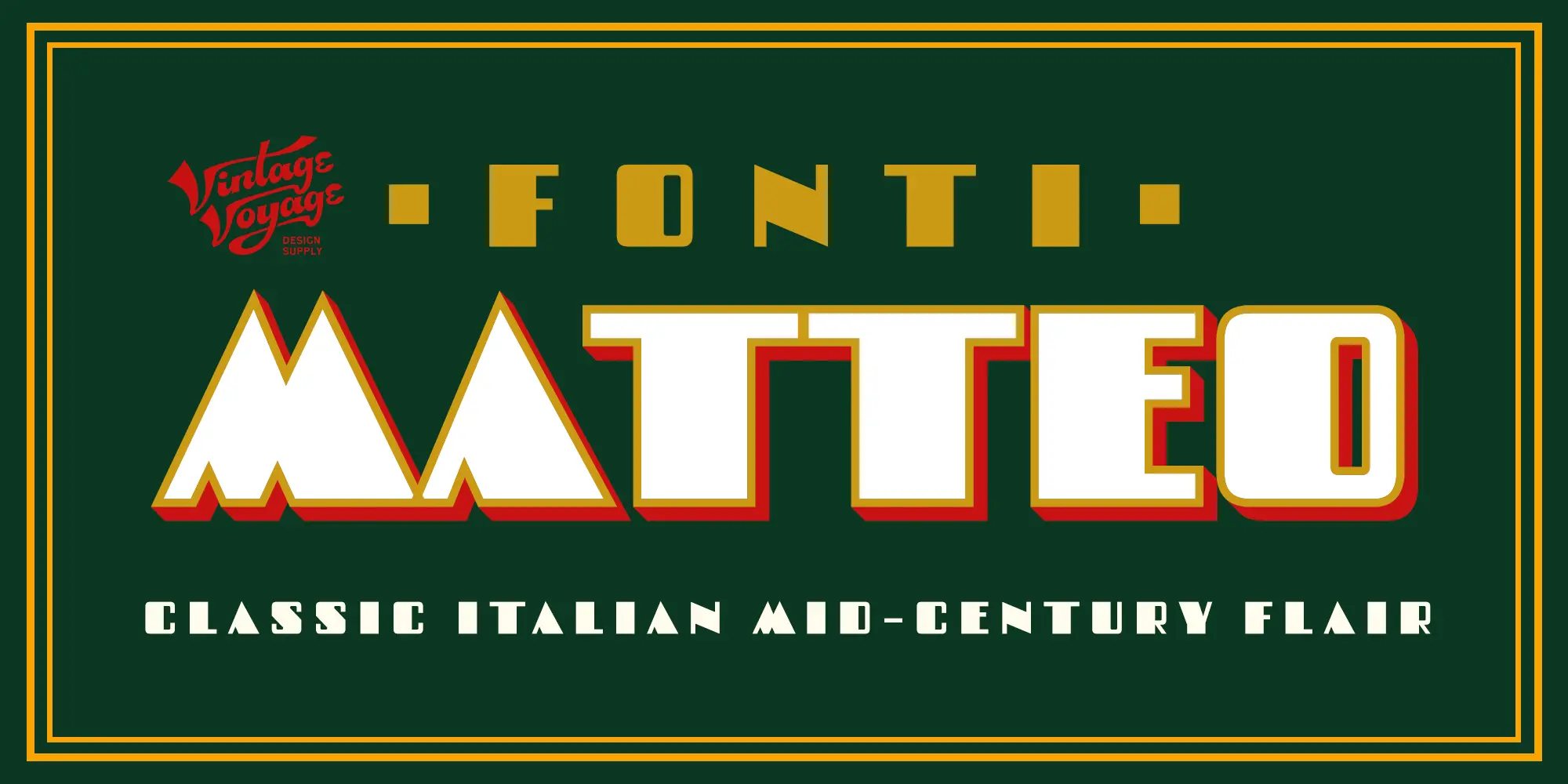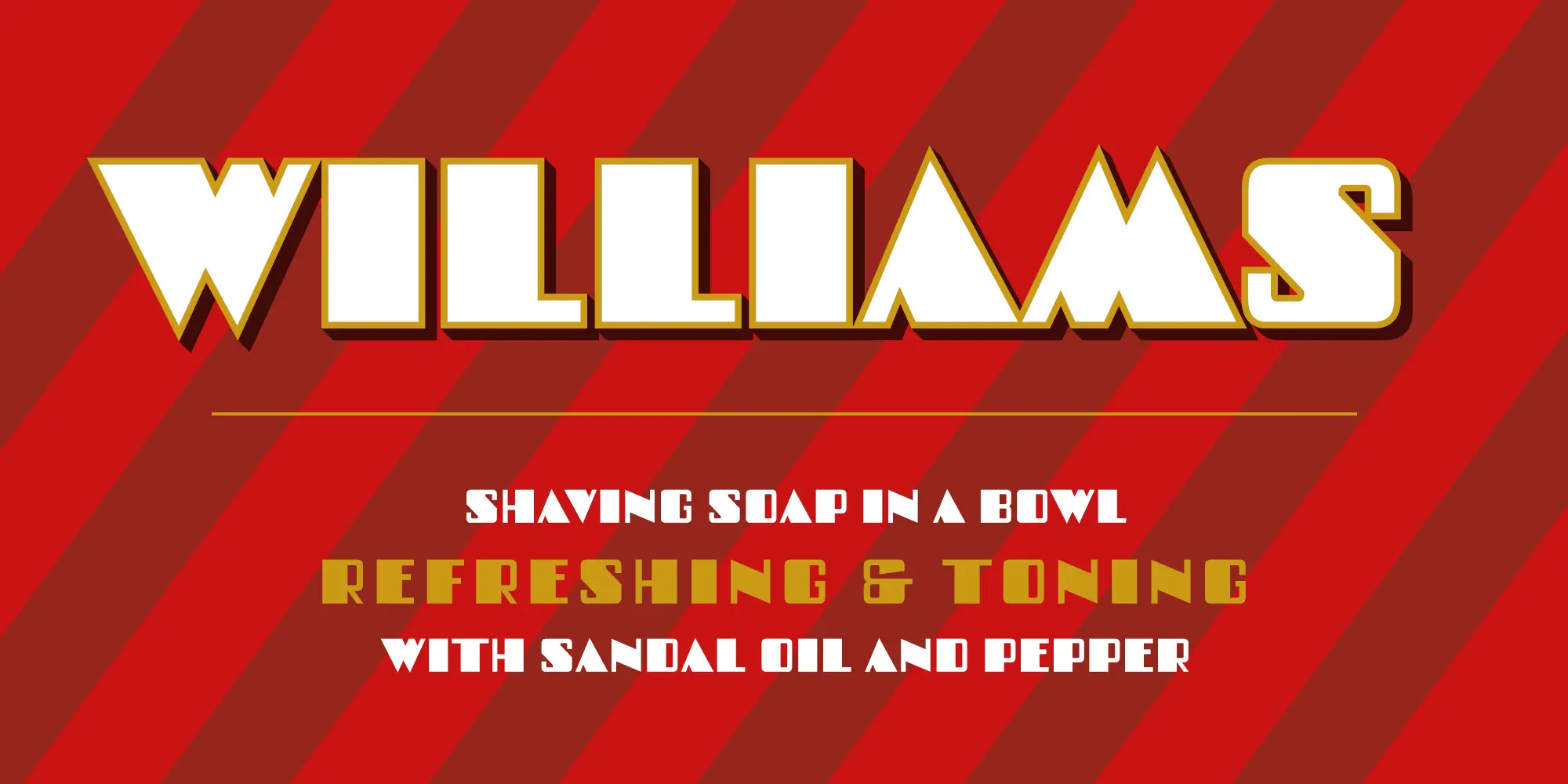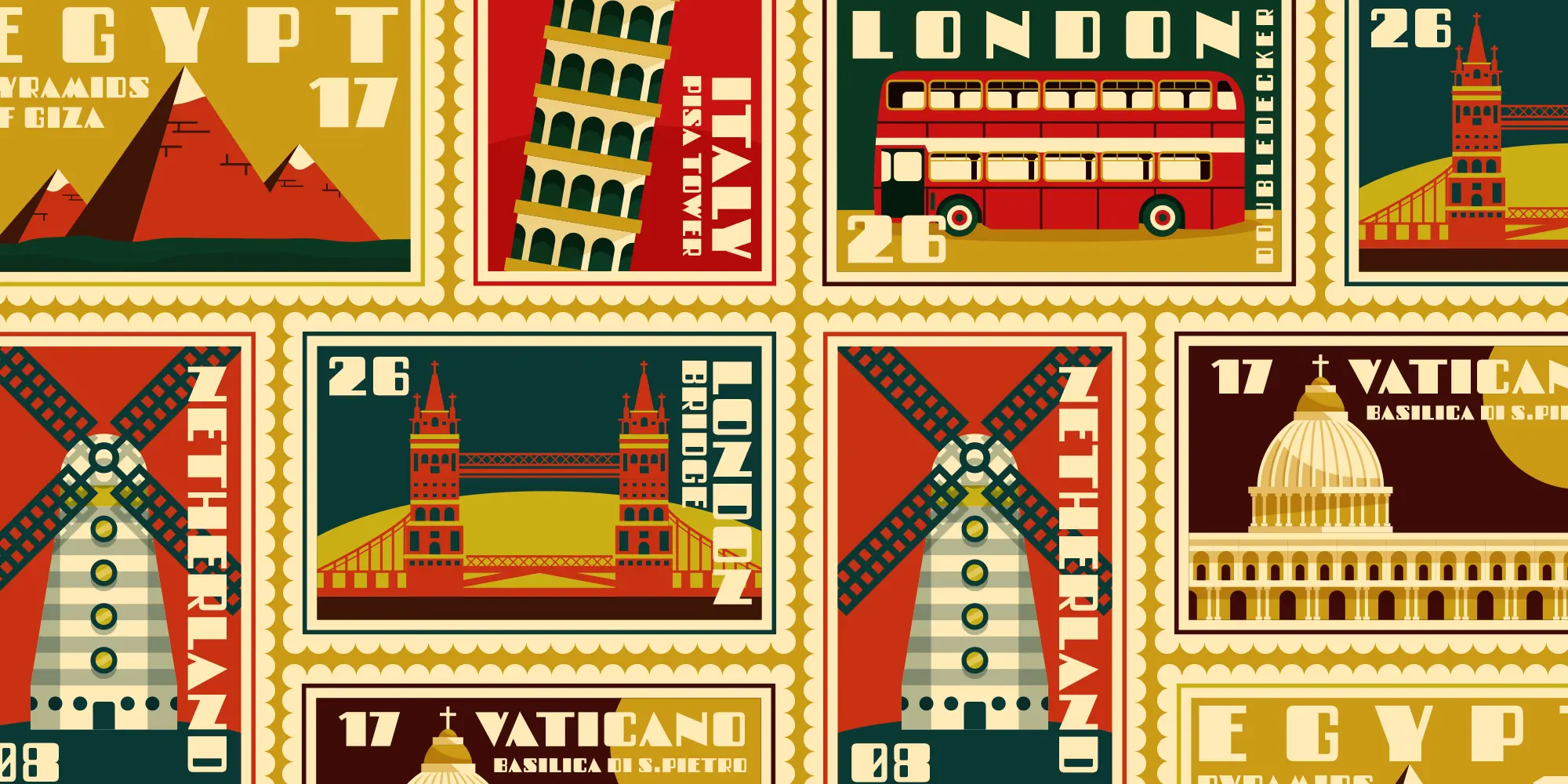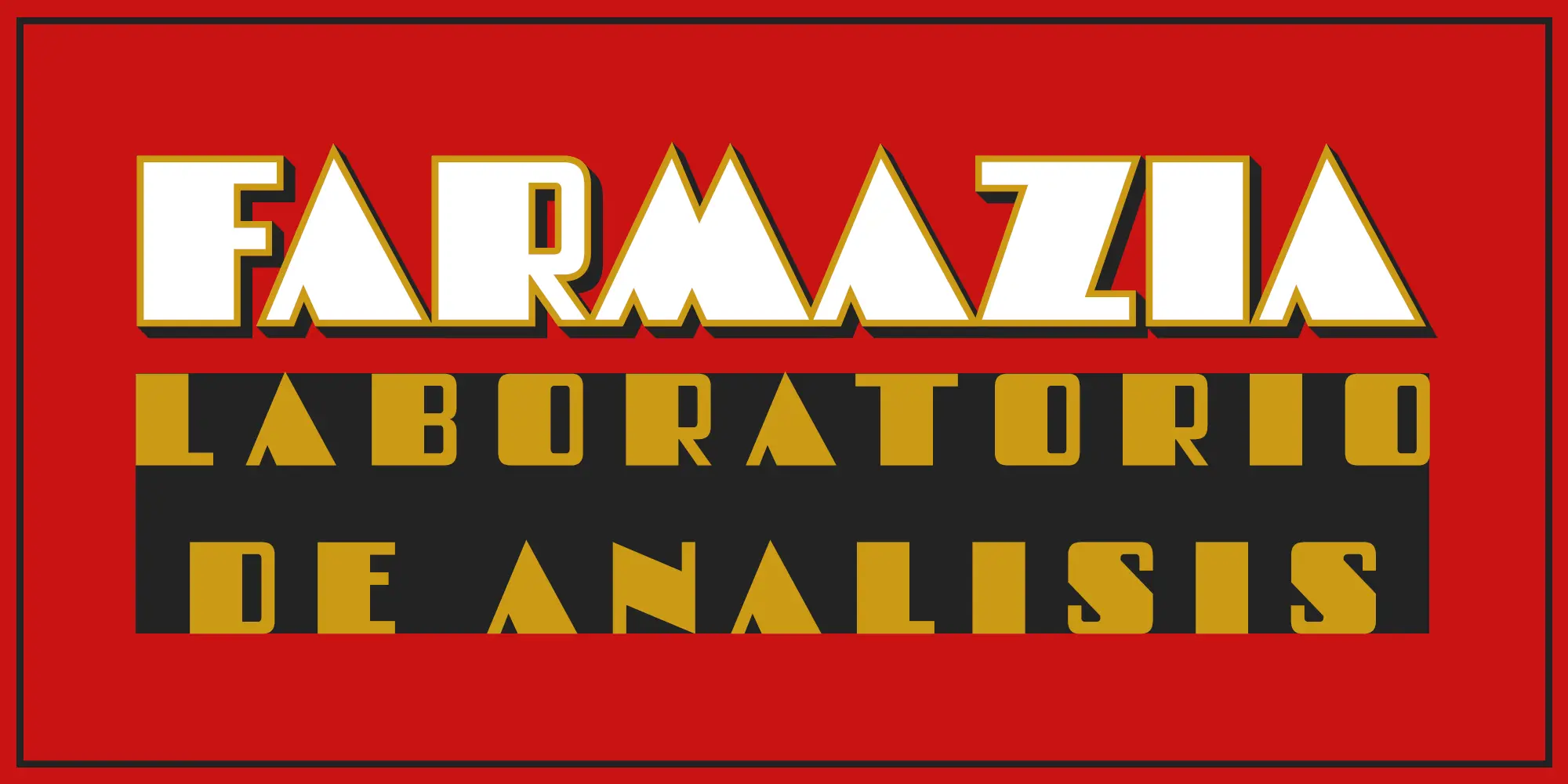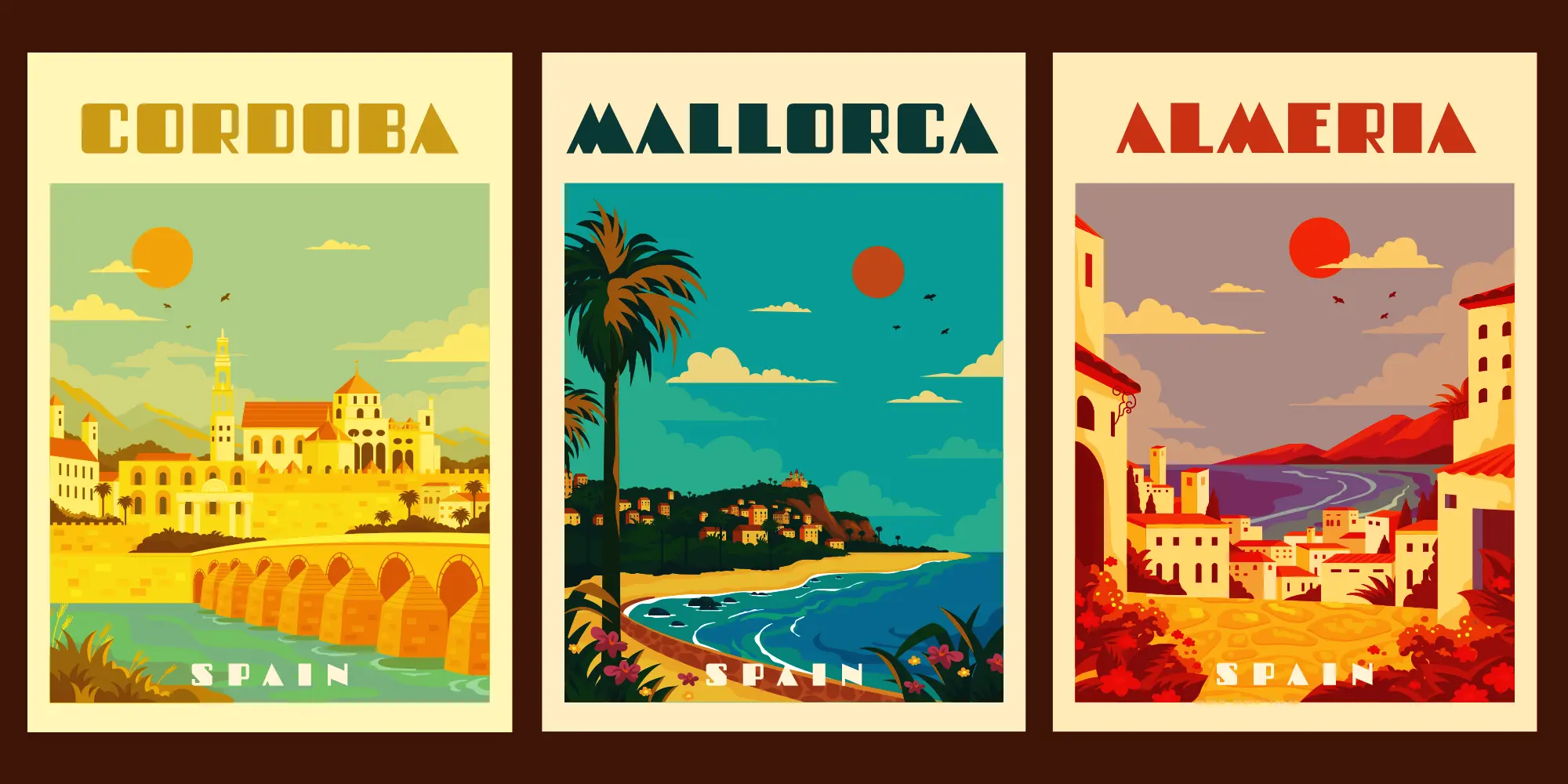
Fonti Matteo Font Family
Fonti Matteo is a high-contrast display typeface reminiscent of Italian street typography often seen in vintage travel postcards and sun-faded restaurant signage. Available in Solid and Shadow, its squarish, geometric shapes are characteristic of Art Deco letterforms with shadowed outlines that add dimensional depth. Fonti Matteo is a distinctive choice for designers aiming for a strong typographic presence and is ideal for posters, book covers, packaging, and branding when a nostalgic aesthetic is desired.
• Common Ligatures
• Fractions
• Ordinal Numerals
• Subscript
• Superscript